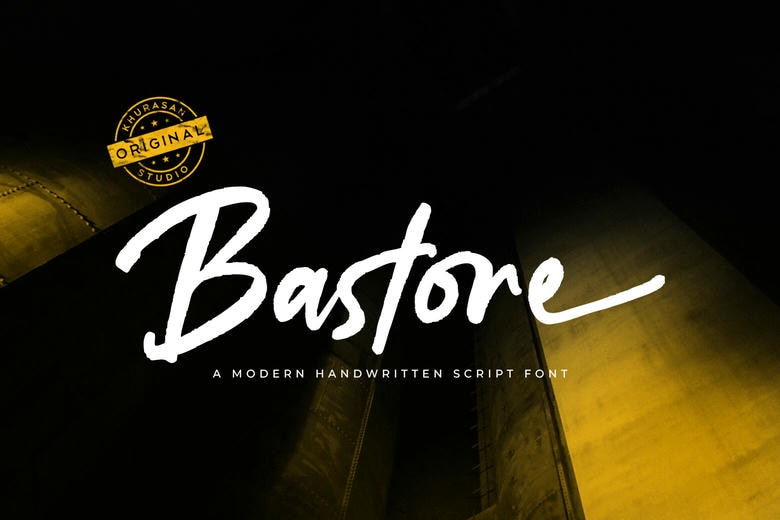
Bastore Font
Bastore is a script handwriting font that is brush-like and has been created to render the beauty of the real hand-lettering. All strokes are alive, smooth, expressive, personality filled. It provides a natural handwritten touch that will make your designs feel friendly, fashionable and high end.
Ideal in logos, branding, product packaging, quotes, social media posts, and wedding designs, Bastore brings the personal and artistic touch that immediately catches the eye. Its flowing links and brush motion give it a feeling of movement and emotion thus rendering your text human and memorable.
Bastore Handwritten Script Font